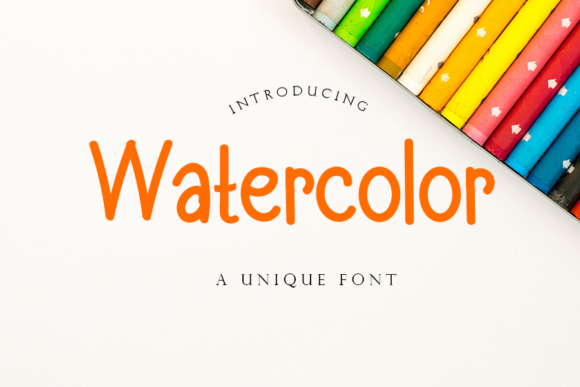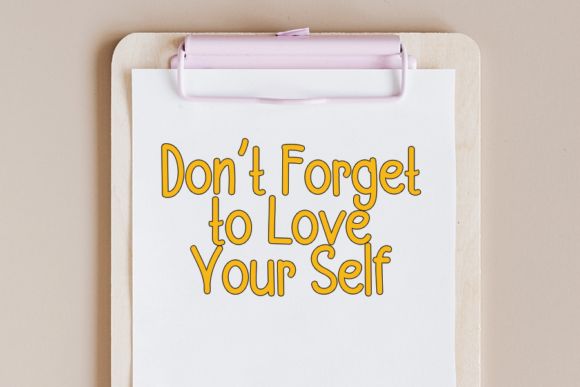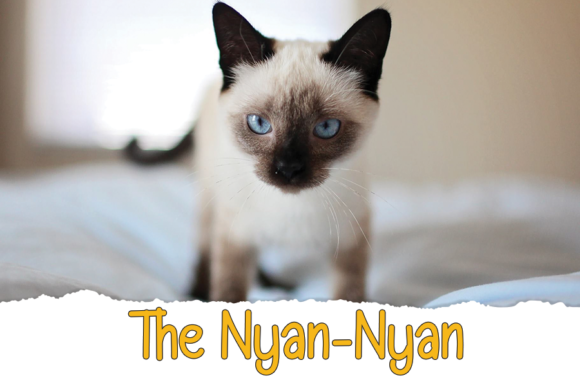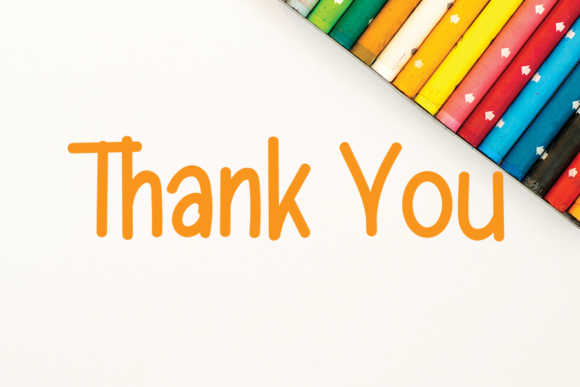
Watercolor Font
About Watercolor Font
Watercolor is a sweet and friendly handwritten font. Its natural and unique style makes it incredibly fitting to a large pool of designs. The only limit is your imagination!